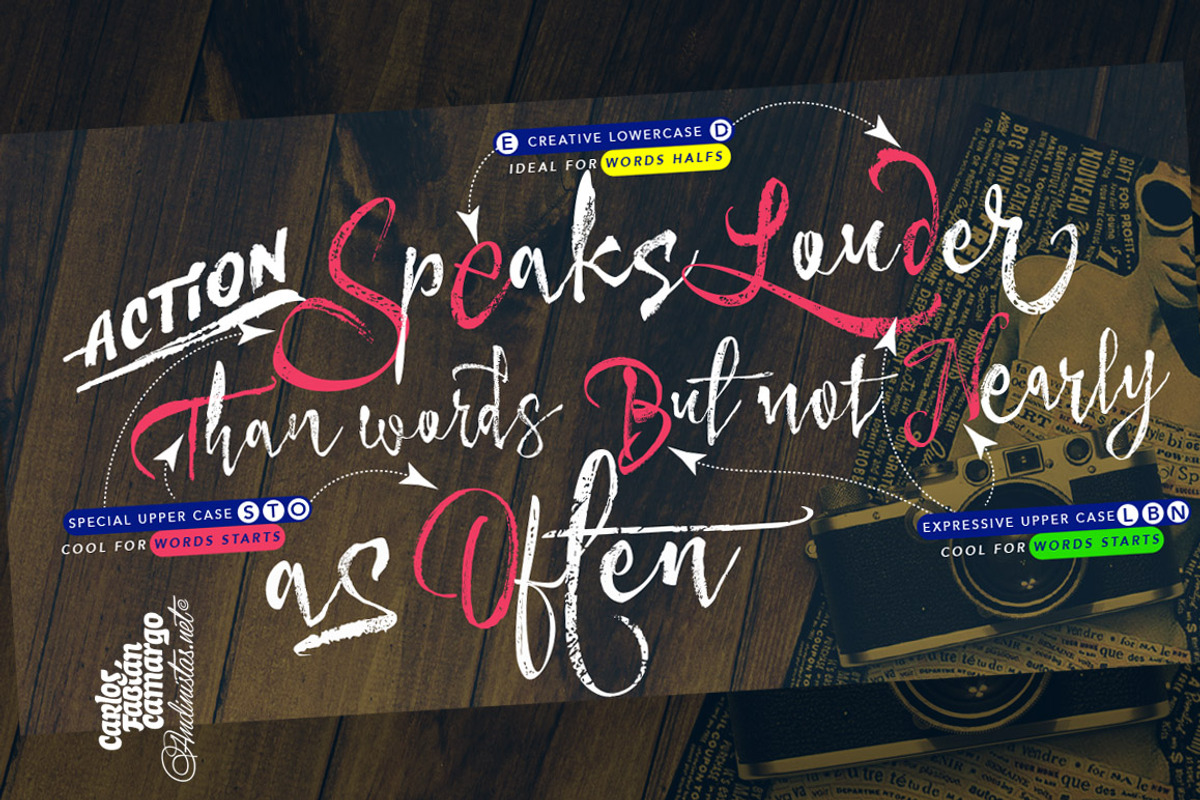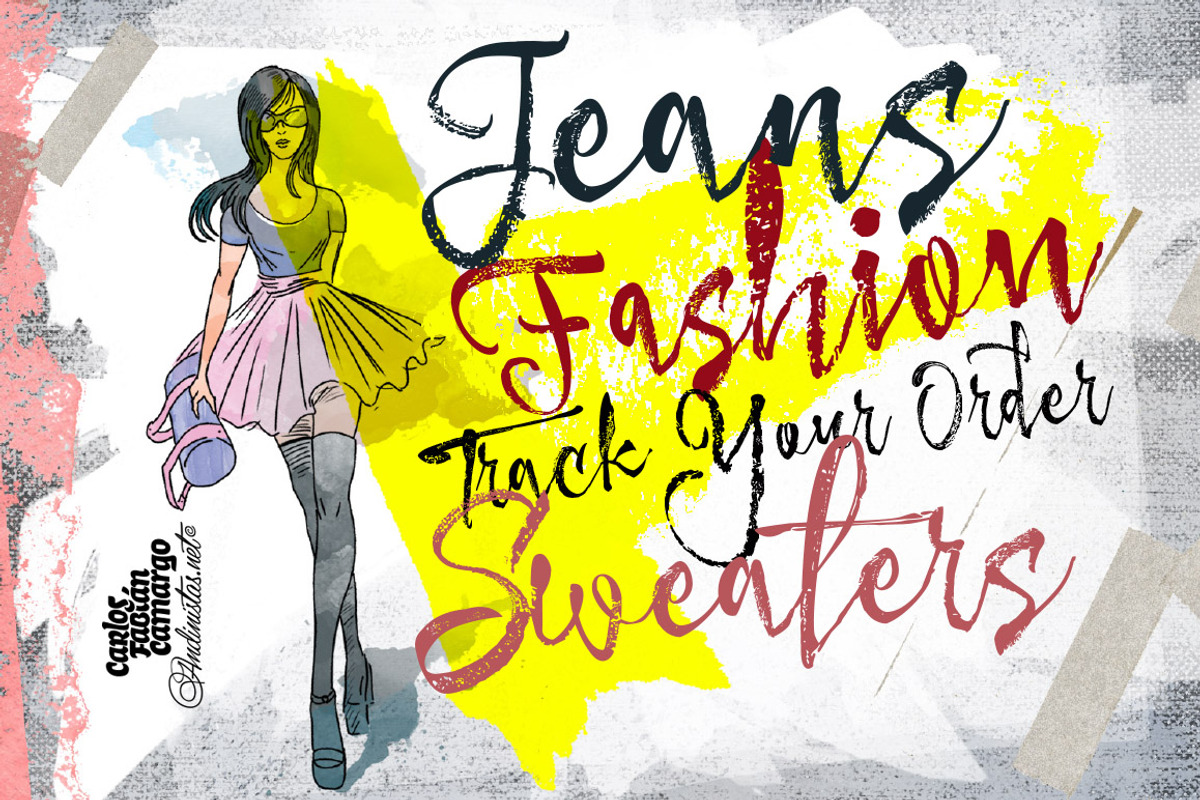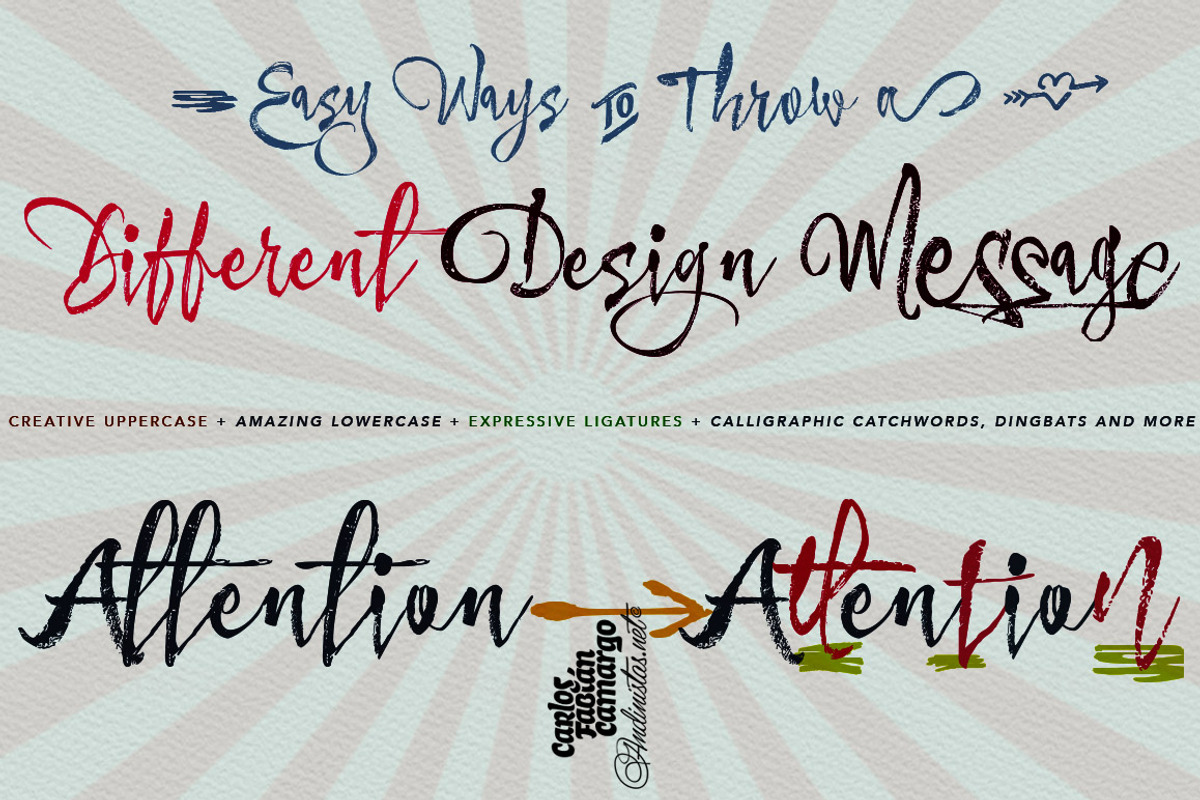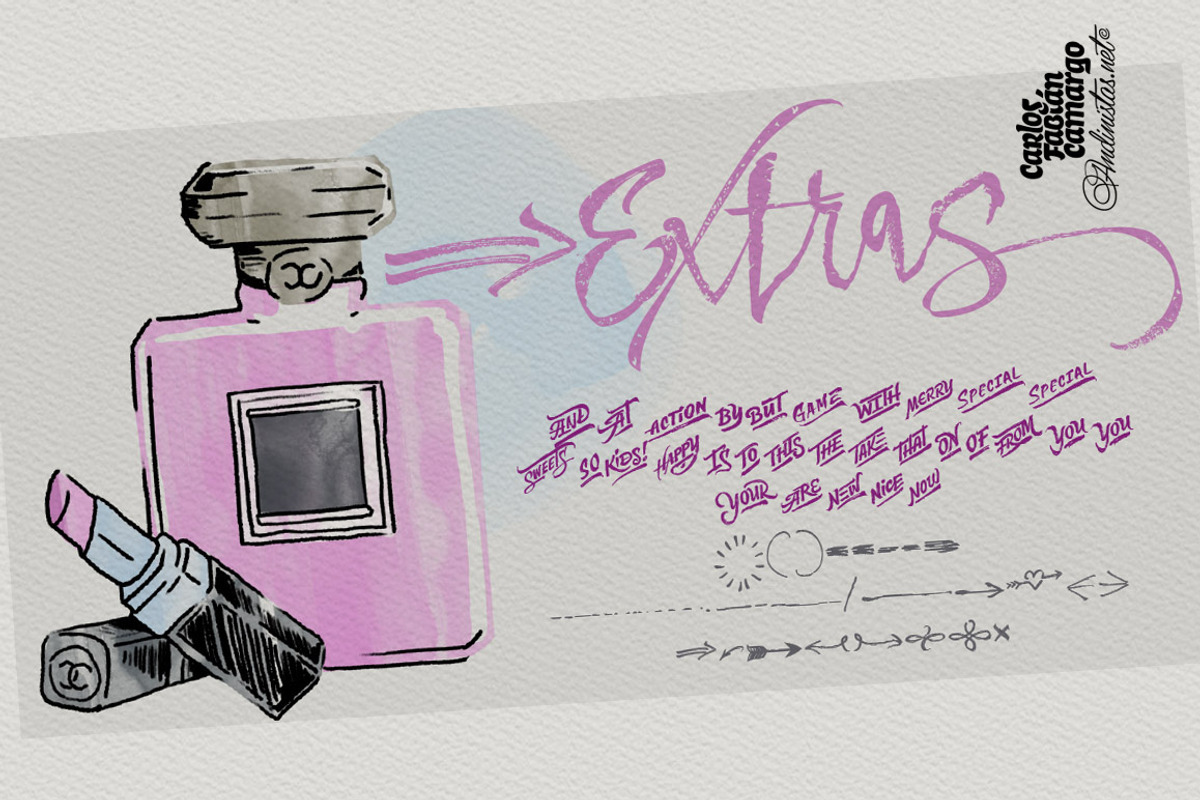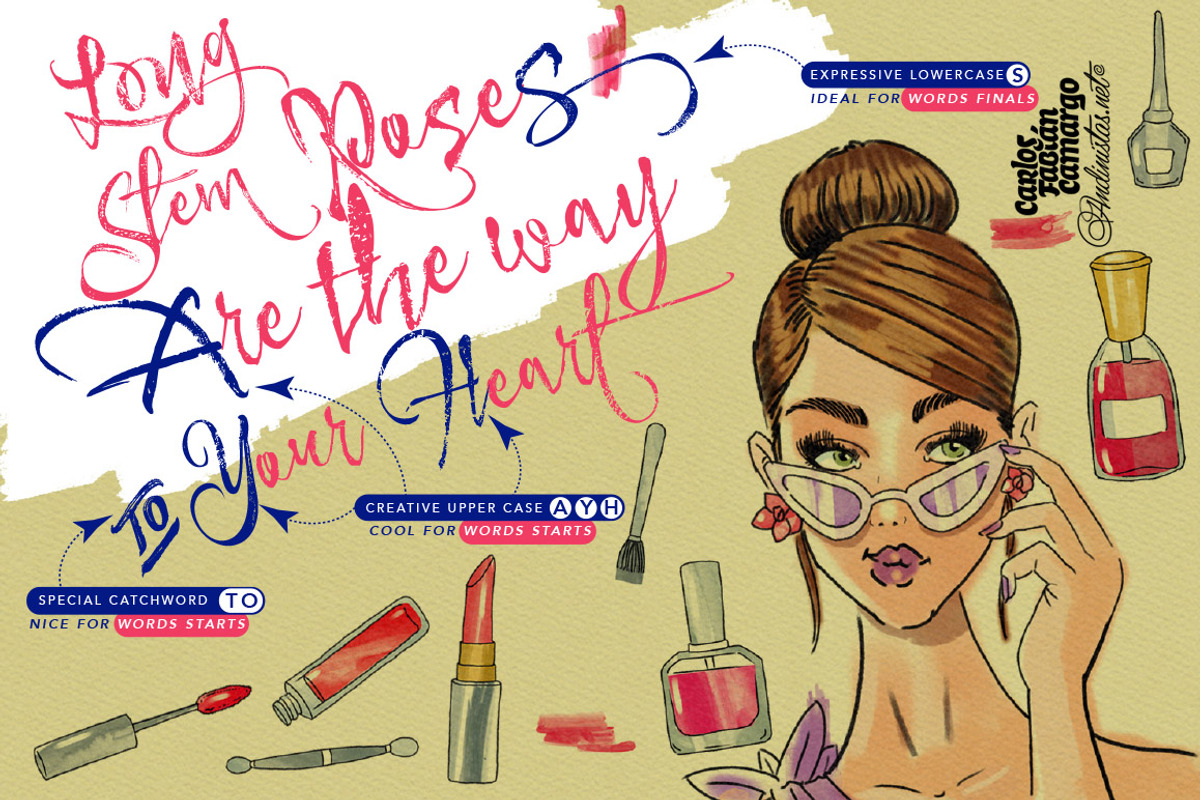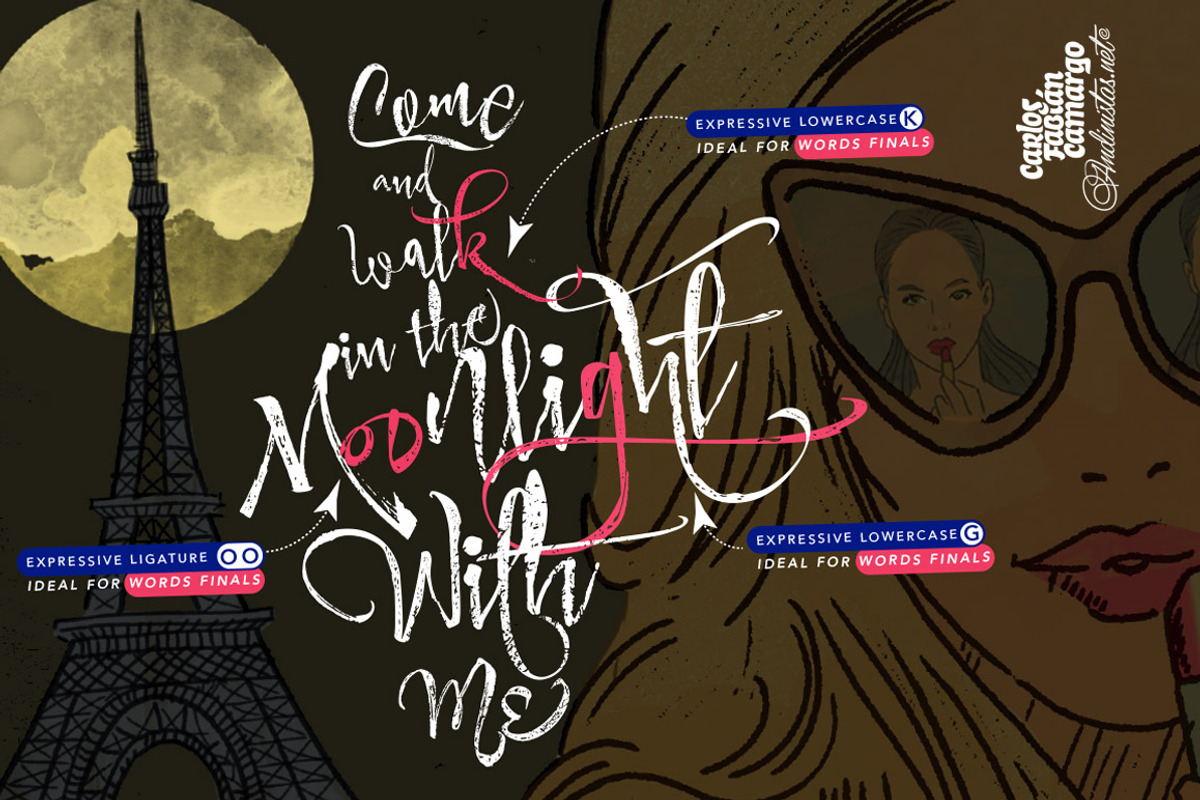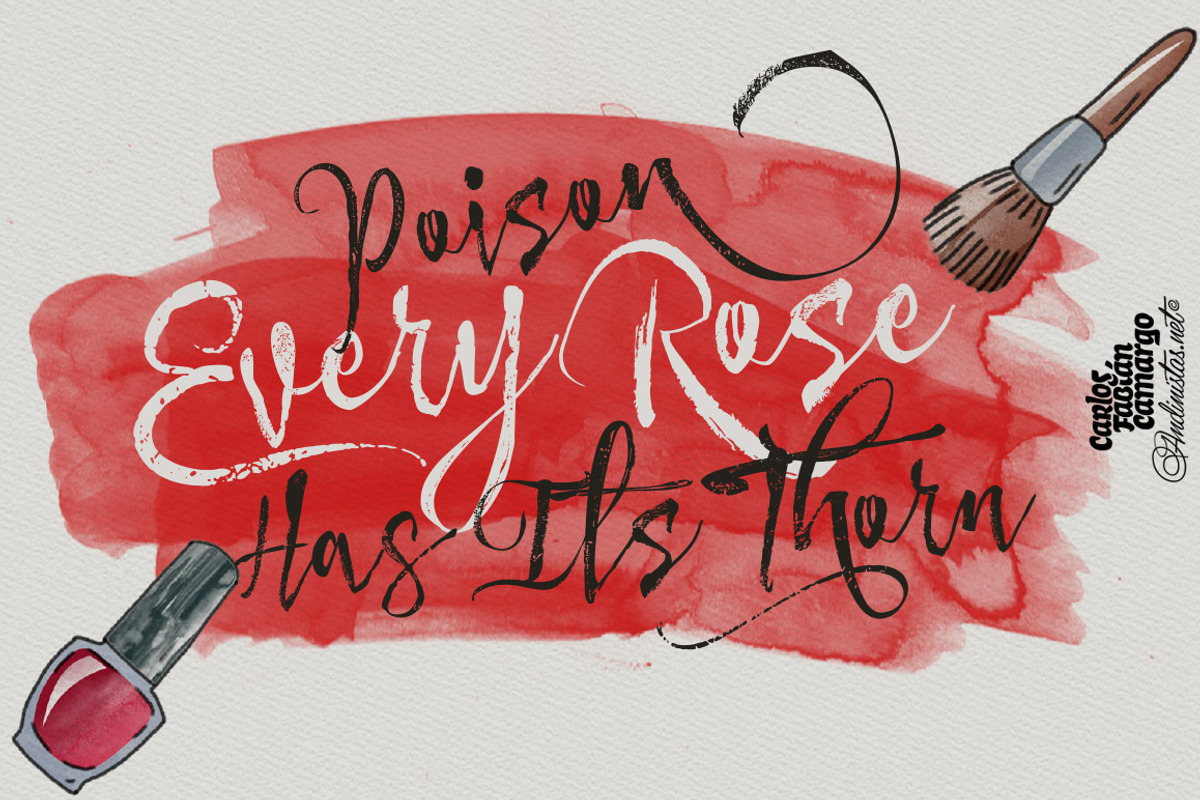
Makeup Type Family / 4 fonts
Makeup Type Family / 4 fonts by Andinistas Fonts is a font selected for branding, posters, packaging, typography.
- In that order of ideas Makeup offers the following tools: • Makeup Script (238 glyphs): It is a script with vibrant fleeting strokes that fo
- • Makeup Alternates (238 glyphs): Offers new script possibilities, different from uppercase, lowercase, numbers that work at the beginning o
Why Makeup Type Family / 4 fonts is worth a look
Makeup Type Family / 4 fonts by Andinistas Fonts fits naturally into Branding, posters, packaging, typography.